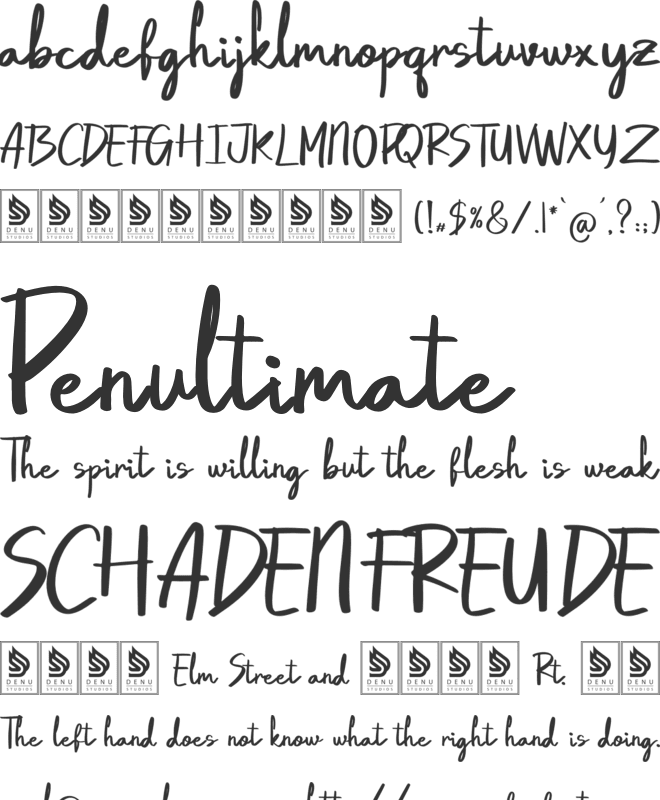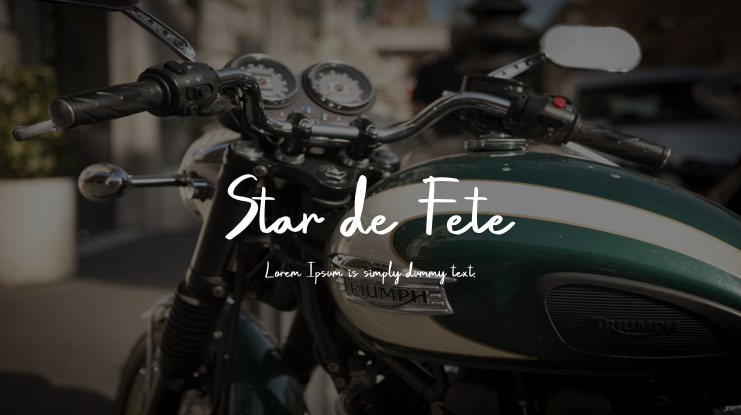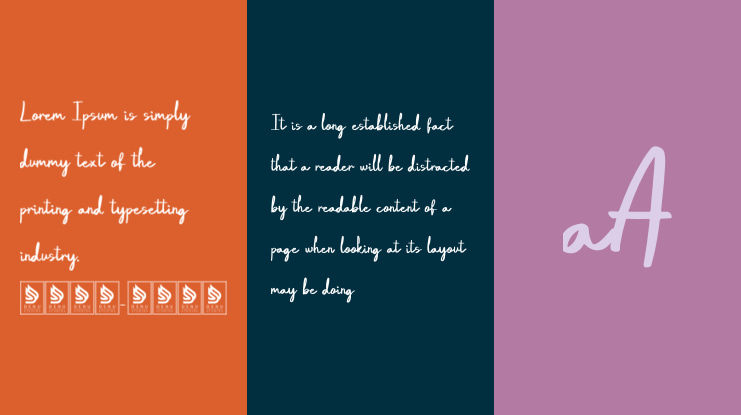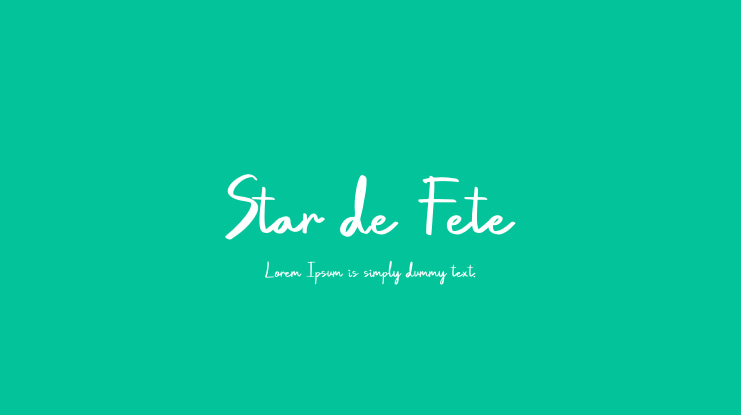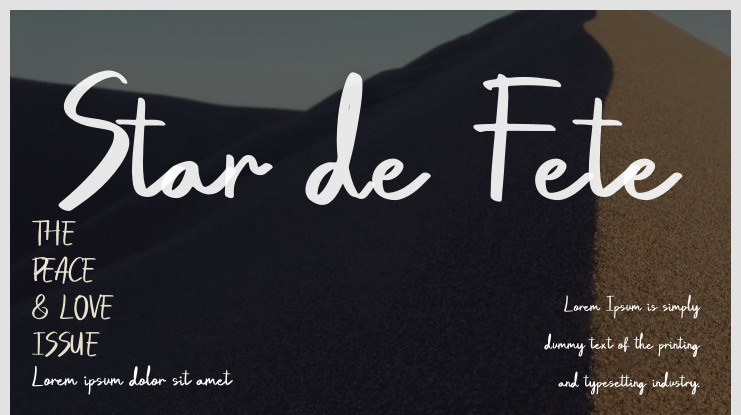
**Star de Fete | Handwritten Font**
Star de Fete is a versatile handwritten font perfect for various projects, including:
- Logos - Branding projects - Homeware designs - Product packaging - Mugs - Quotes - Posters - Shopping bags - T-shirts - Book covers - Name cards - Invitation cards - Greeting cards - Labels - Photography - Watermarks - Special events
If your project needs a handwritten font touch, this could be a great choice.